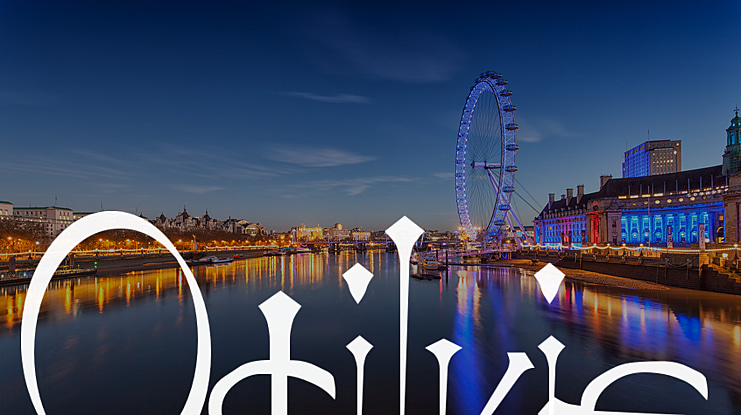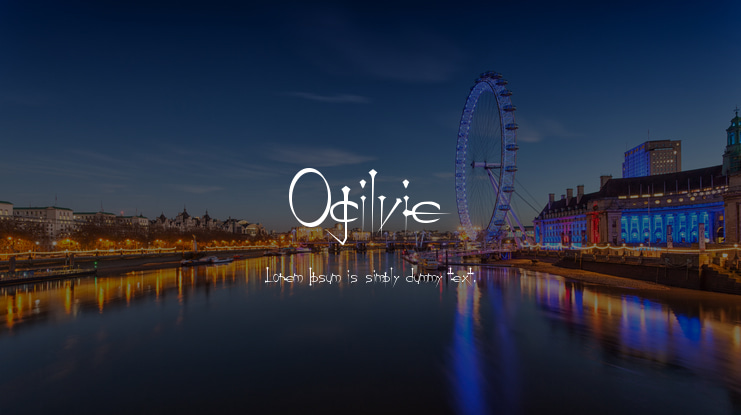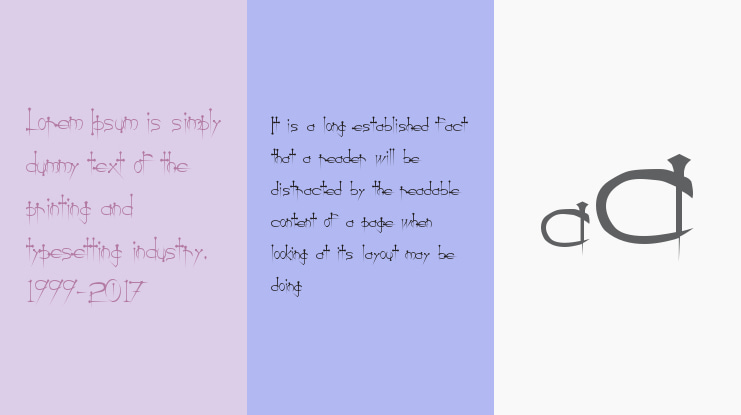
Ogilvie Font
Now, I'm not a HUGE Skinny Puppy fan or anything, but I've got a
few albums and think they're kinda cool. I really liked their "SP" logo,
so in my usual tradition of creating fonts based on two or three letters
from an album cover, I made "Ogilvie." It's kinda neat, I think, and is
reasonably agressive-looking. Maybe good for posters or flyers or
such...probably not meant for greeting cards.